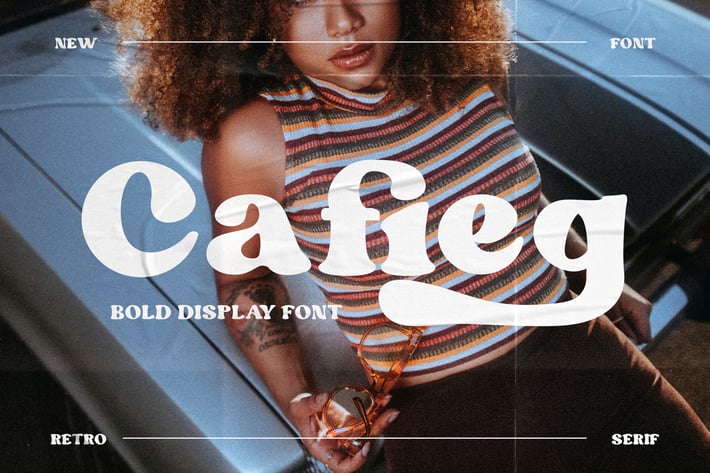
Cafieg - Bold Display Font
Introducing "Cafieg" - a bold display font that captures attention with its commanding presence and striking aesthetics.
With its robust and impactful letterforms, "Cafieg" makes a bold statement in any design application. Each character is meticulously crafted to convey strength and character, making it perfect for headlines, logos, posters, and branding projects.
Embrace the boldness of "Cafieg" as it effortlessly elevates your designs. Whether you're creating powerful logos, attention-grabbing headlines, impactful posters, or bold branding materials, this font will captivate your audience with its bold and dynamic style.
Step into a world of bold typography with "Cafieg" and let your designs speak volumes with its strong and assertive presence.
– Lowercase
– Ligature
– Alternate
– Multilingual Support